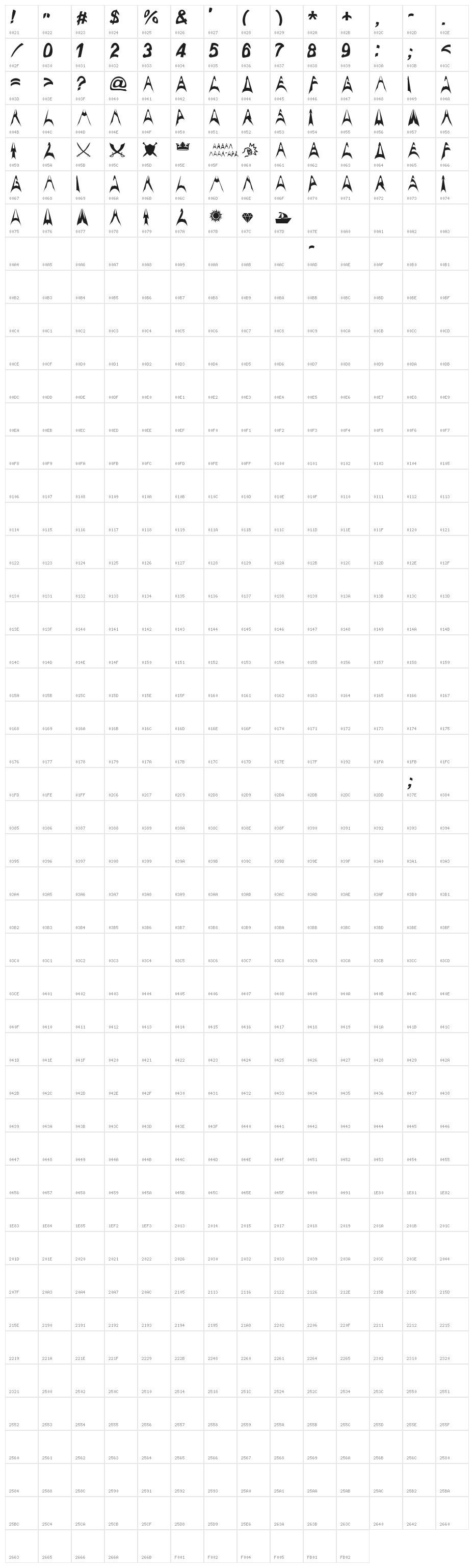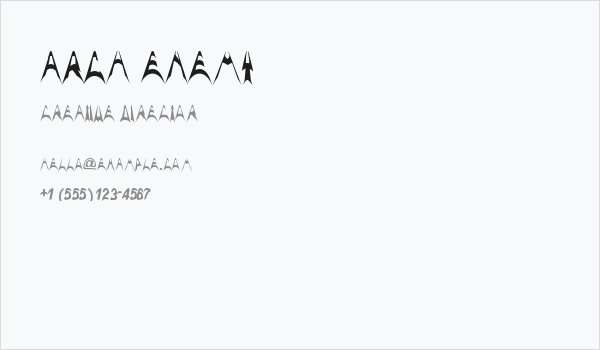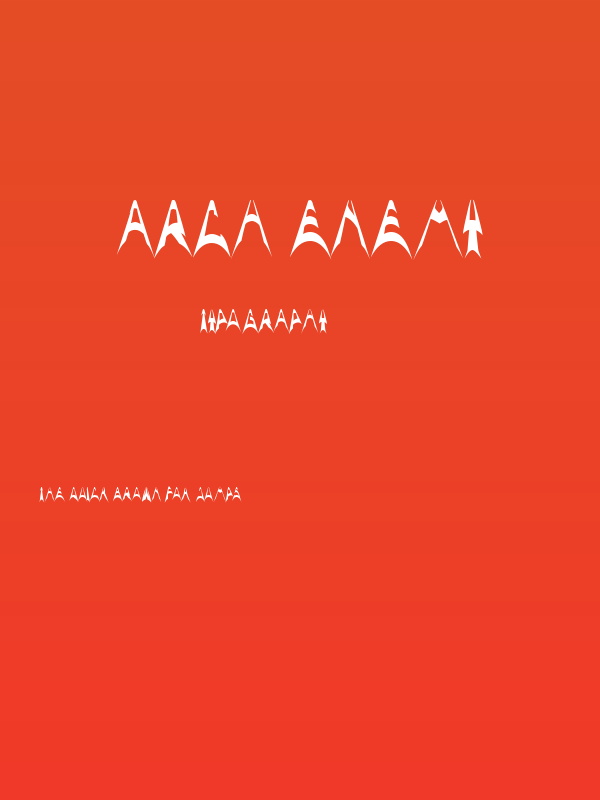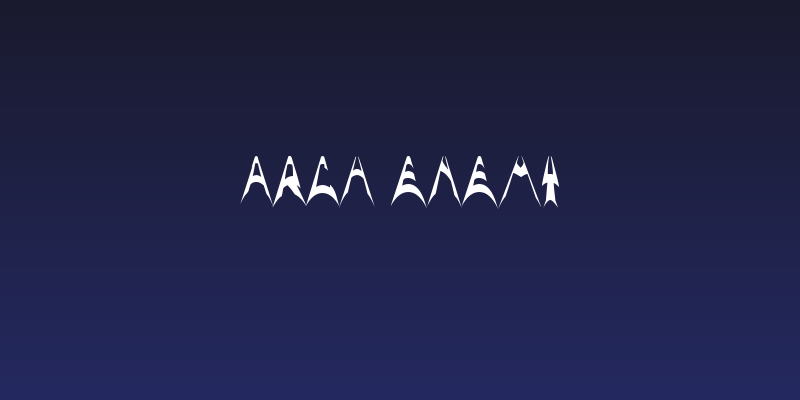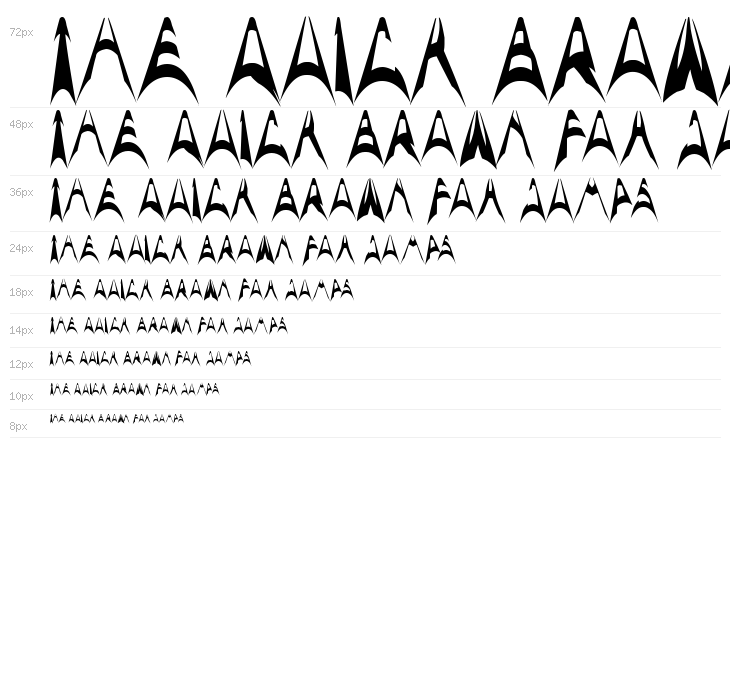
ARCH ENEMY Font
| Stile generale | Modern, Edgy |
| Progetti proposti | Ideal for extreme sports branding, music album covers, video game titles, and any project needing a strong visual impact. |